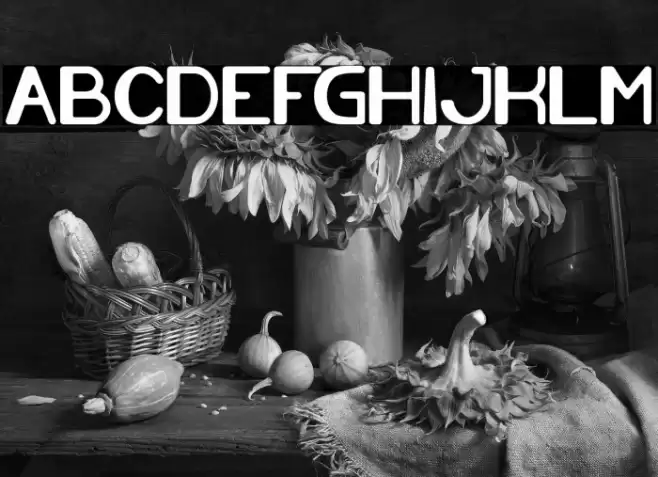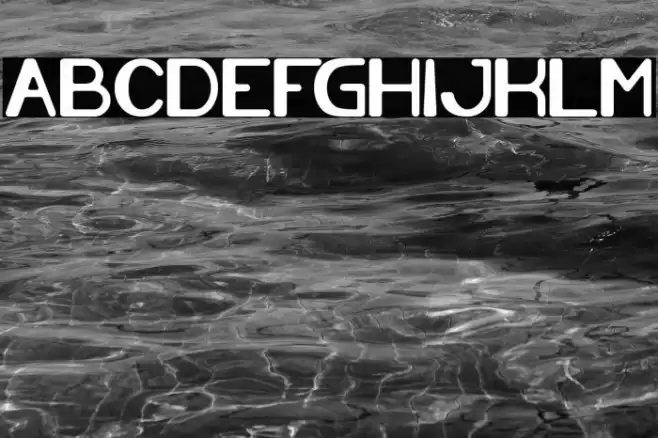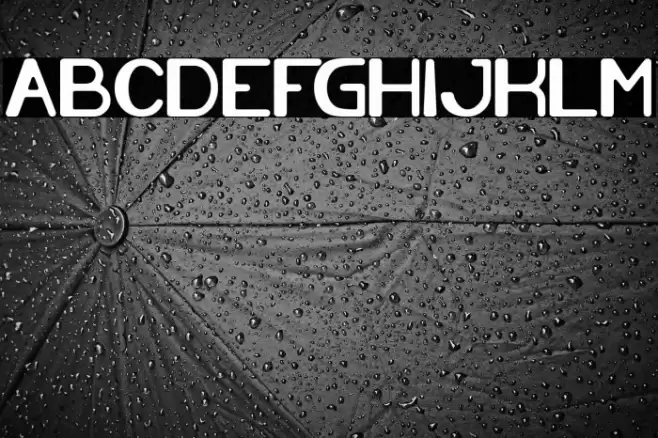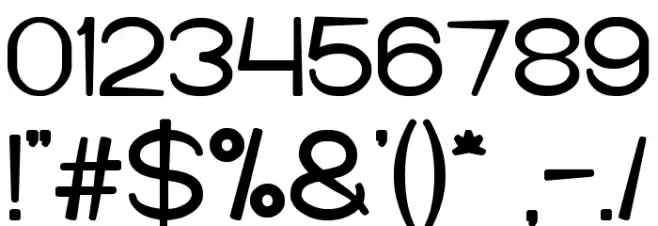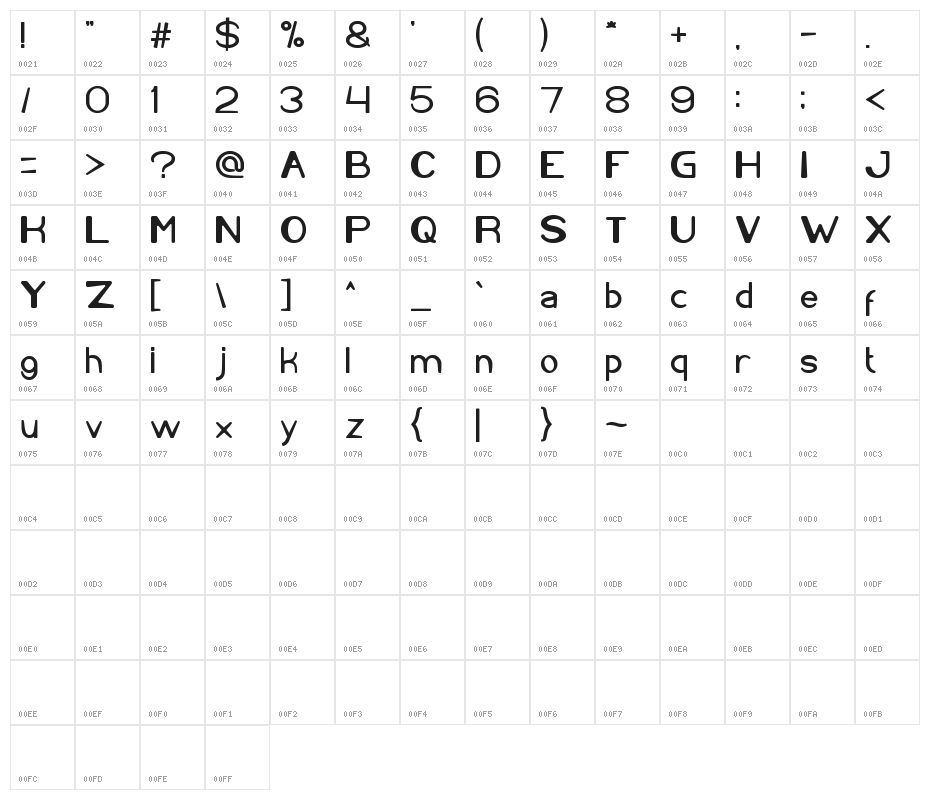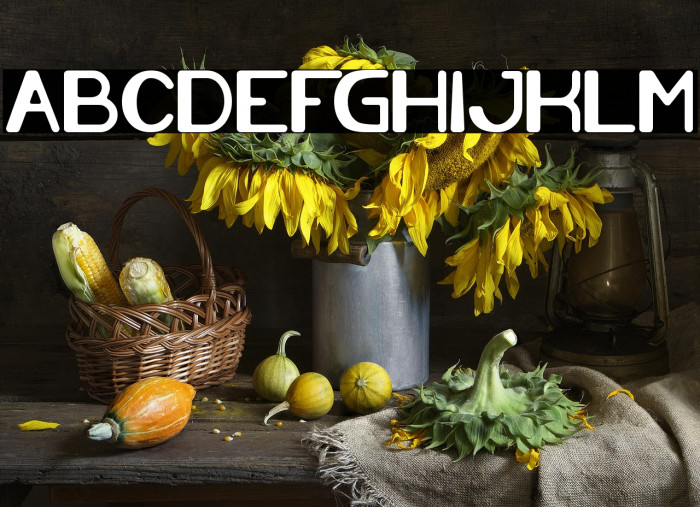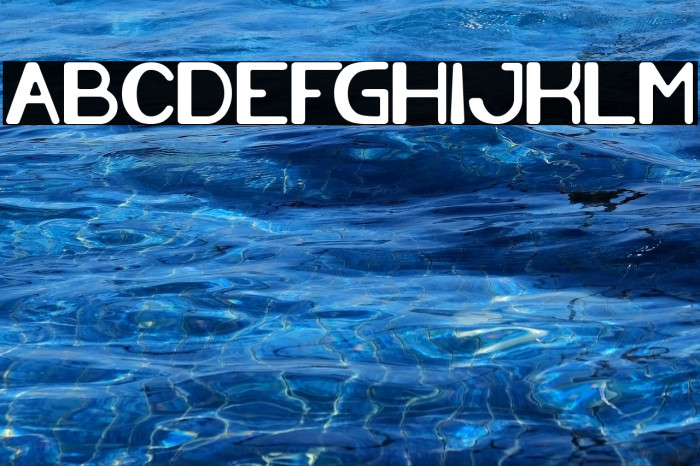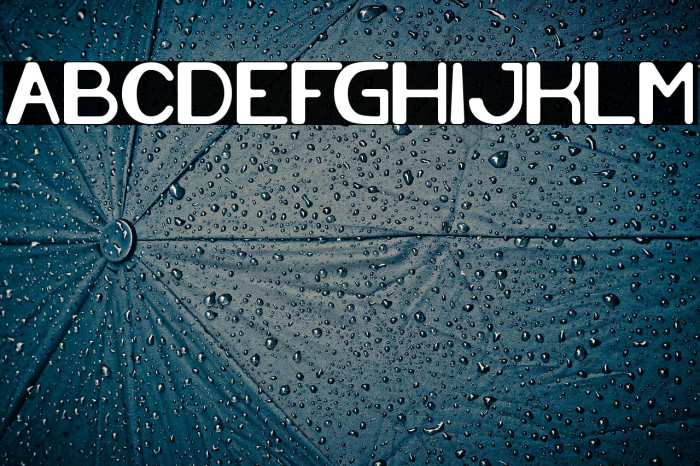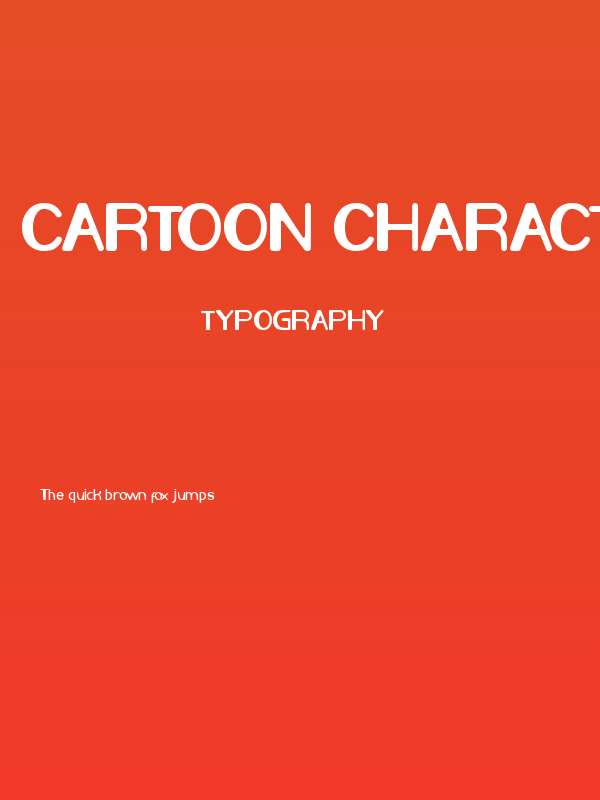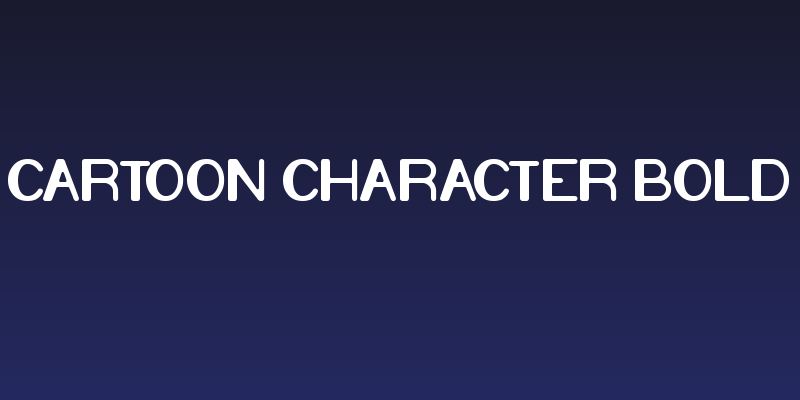
Cartoon Character Bold Font
Cartoon Character Bold Description
This playful and bold typeface features rounded edges and a friendly, approachable style. The characters are evenly spaced with a consistent stroke width, giving it a clean and modern appearance. The uppercase letters are slightly taller than the lowercase, adding a touch of whimsy. The numerals and special characters maintain the same rounded and bold characteristics, ensuring uniformity across all glyphs. This font is ideal for projects that require a fun and informal tone, such as children's books, cartoons, or playful branding.
A bold, rounded typeface with a playful and friendly style from Uncategorized fonts.
- Proposed Projects: Ideal for children's books, cartoon titles, playful branding, and informal posters.
- Overall Style: Playful